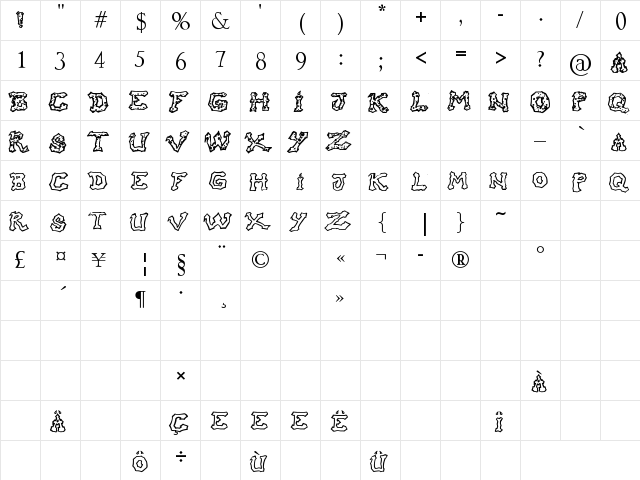
Raslani hO oH! Regular
| Designer | Raslani |
Design Context for Raslani hO oH! Typeface
Raslani hO oH! is a composed and adaptable typeface that performs quietly and consistently across a wide range of design contexts.
Pro Tip: Use Raslani hO oH! in both headline and body roles to test its range before committing to a single application.